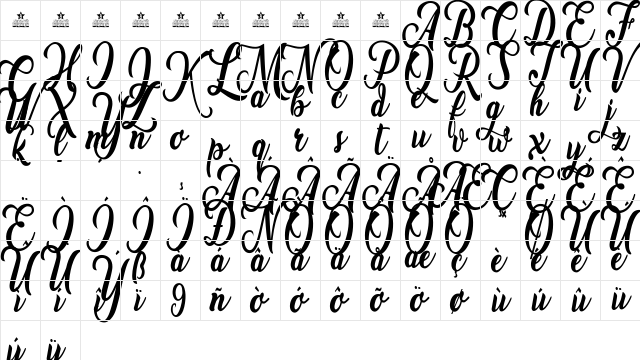
Amsterdam Regular Free Font
Amsterdam Regular
Foundry: Billy Argel
Designer: Billy Argel
Design Context for Amsterdam
Amsterdam is a composed and adaptable typeface that performs quietly and consistently across a wide range of design contexts.